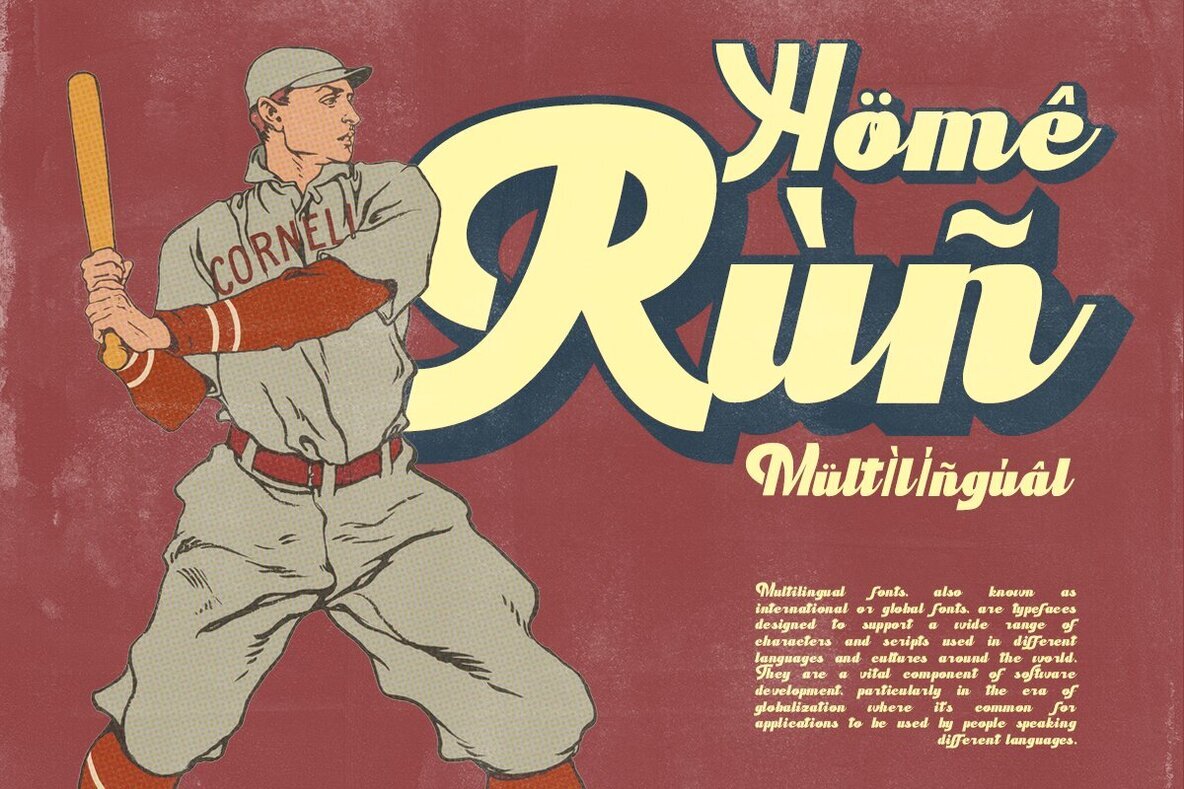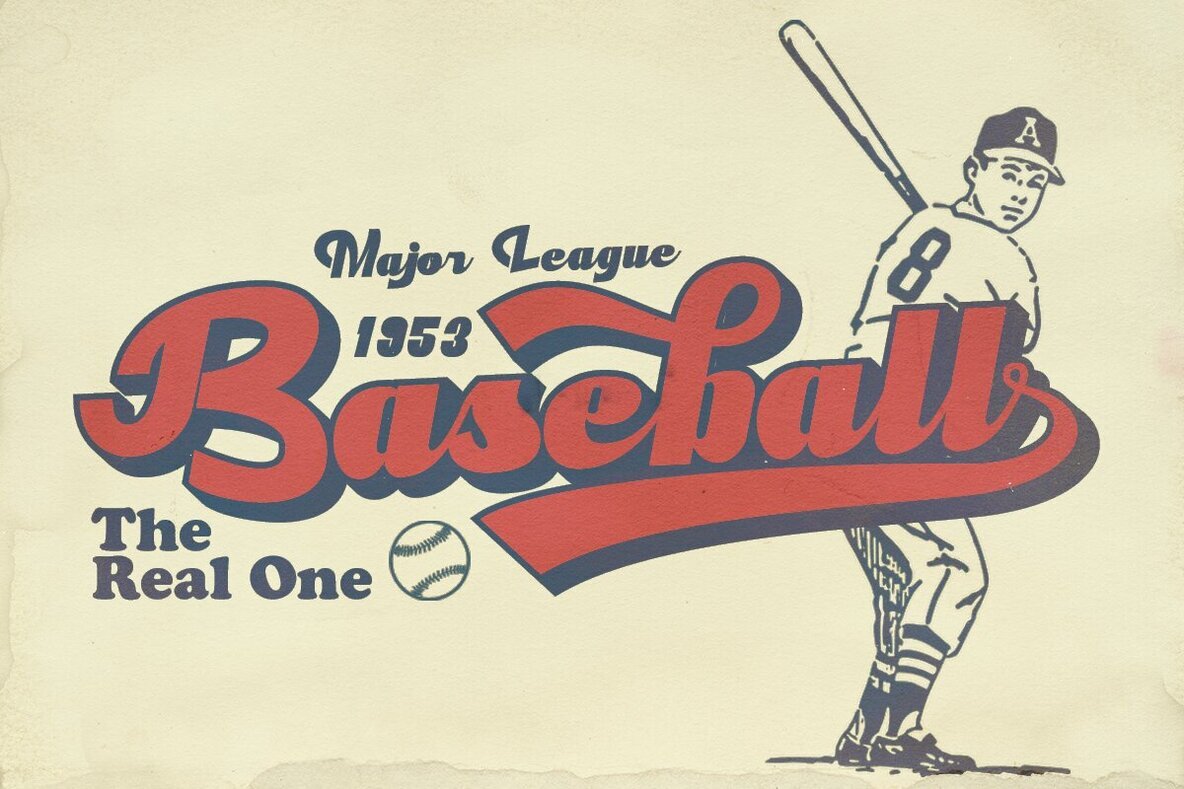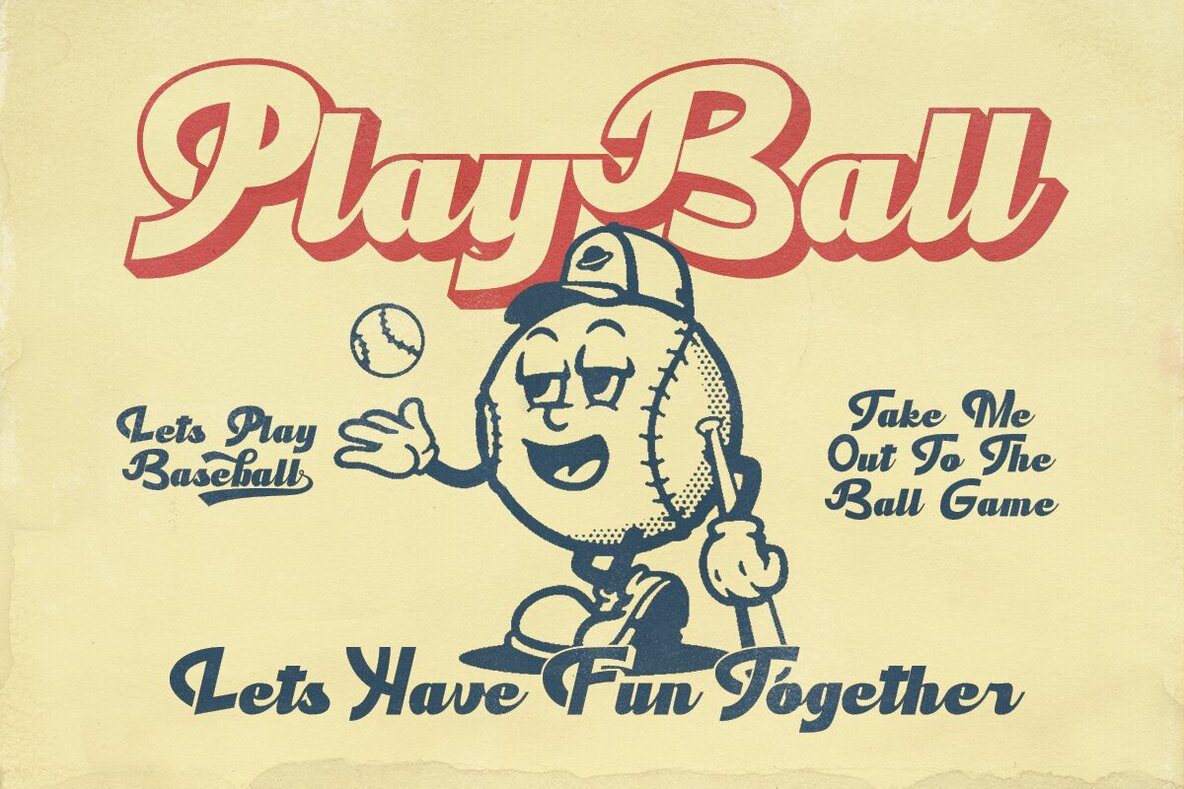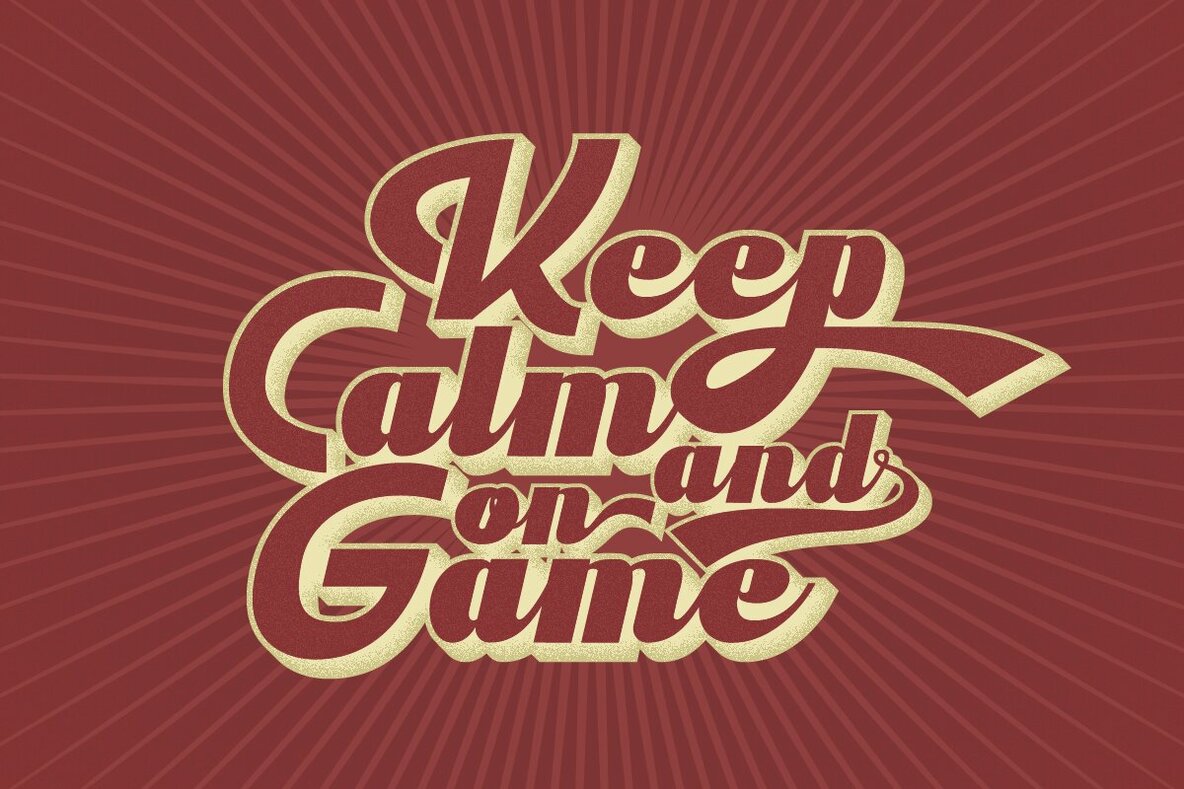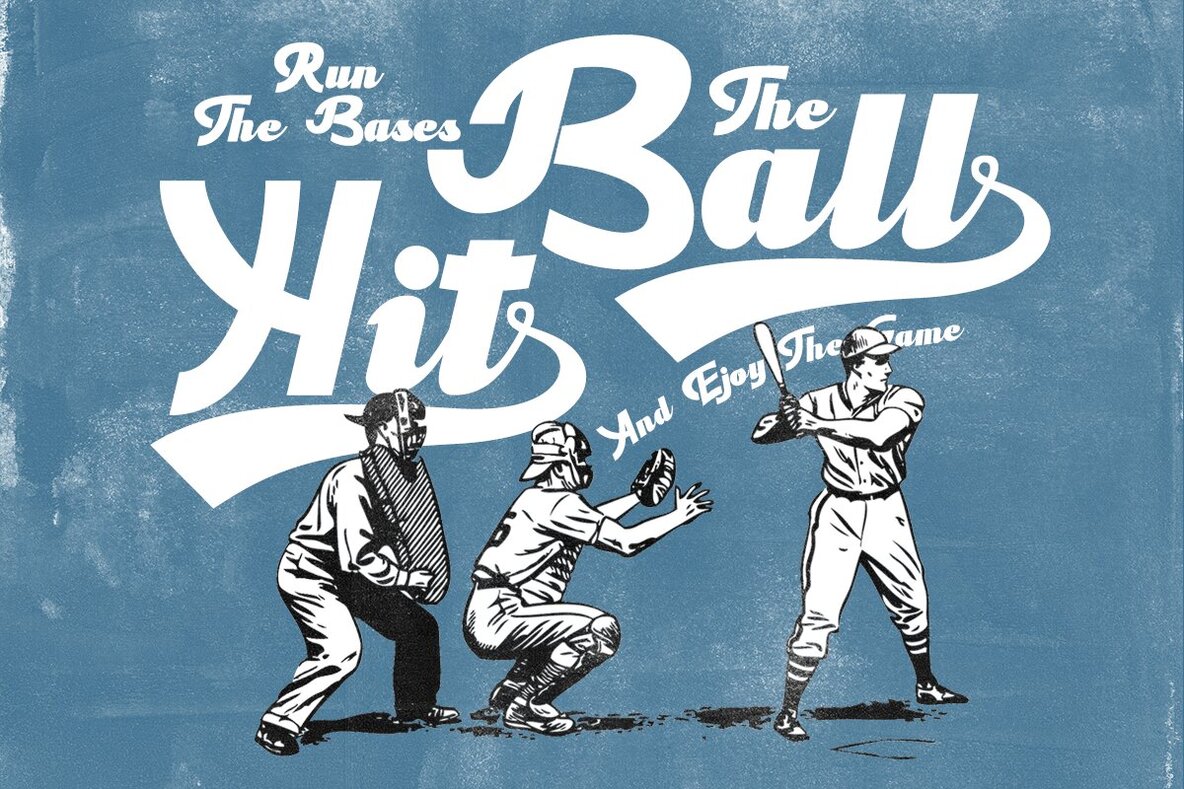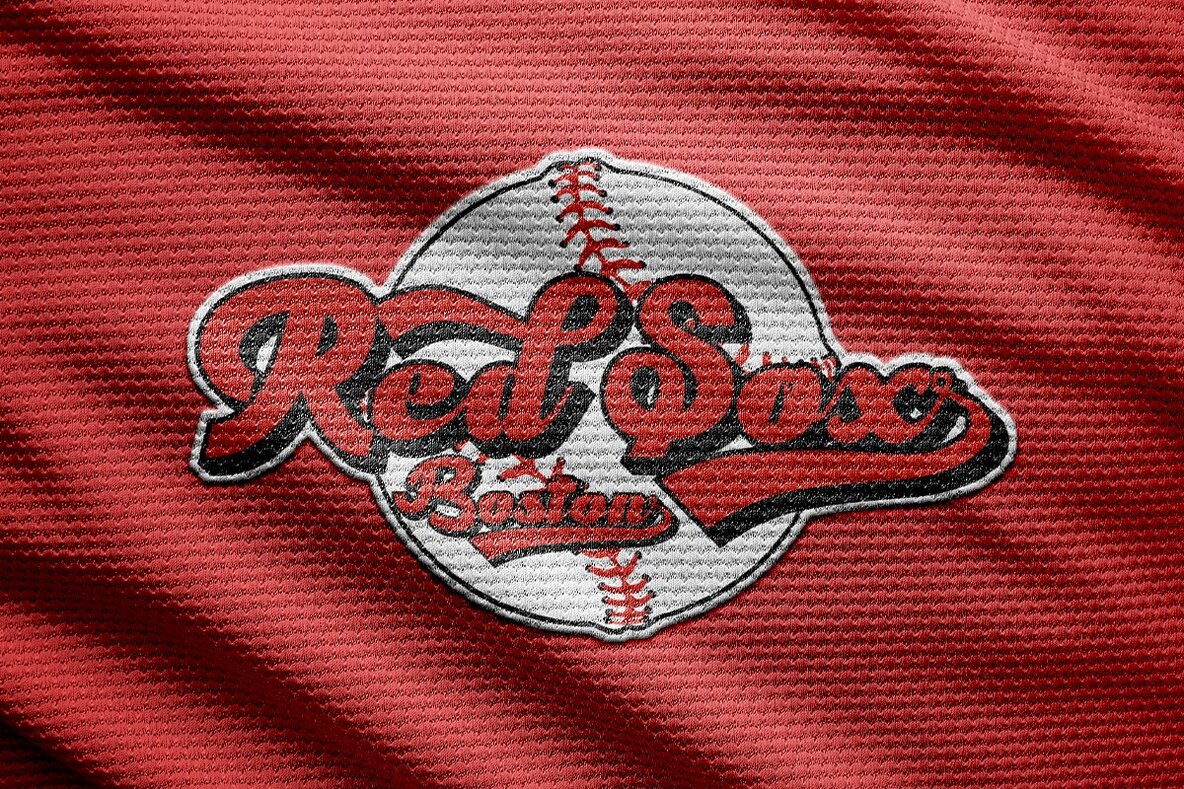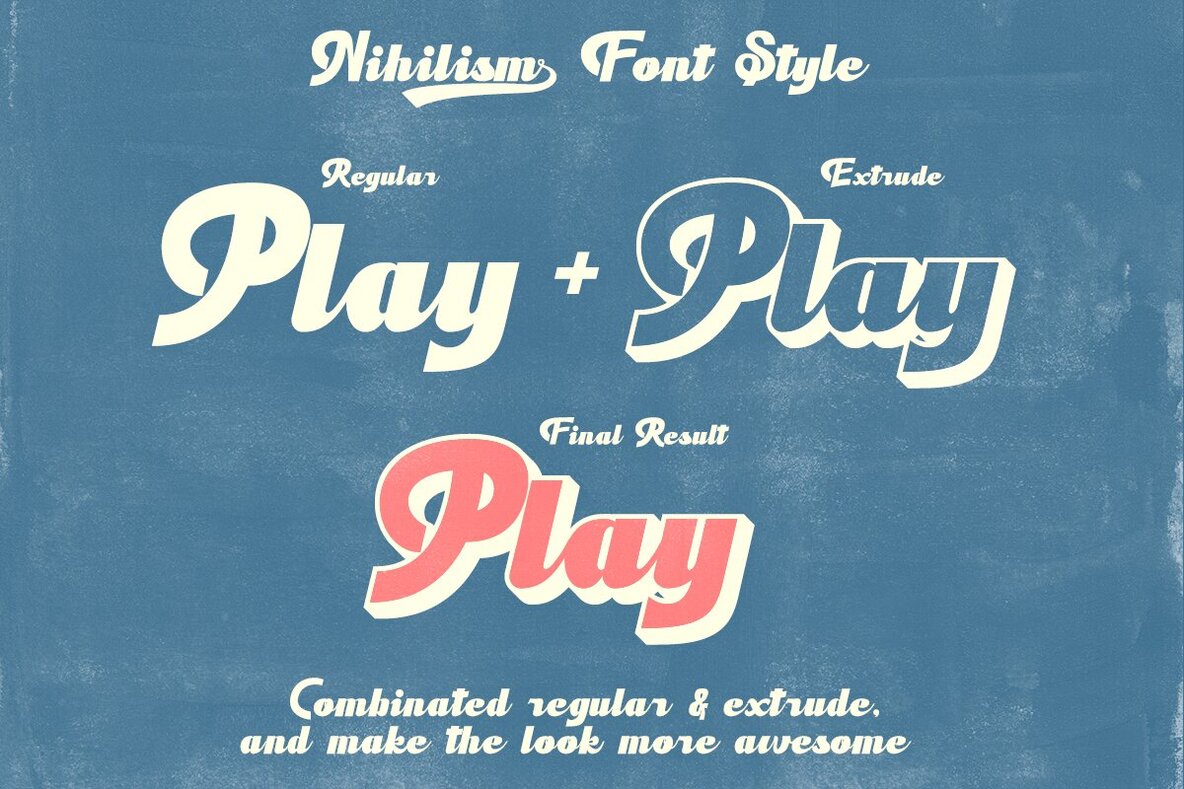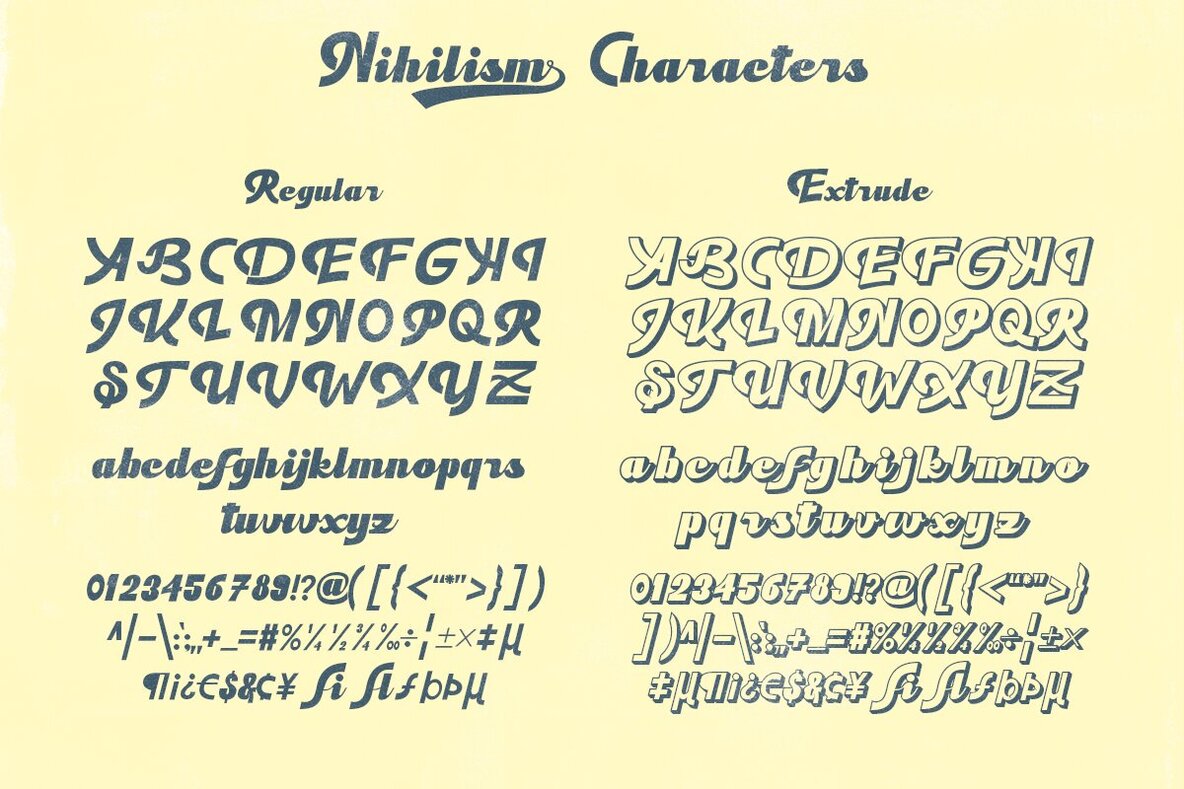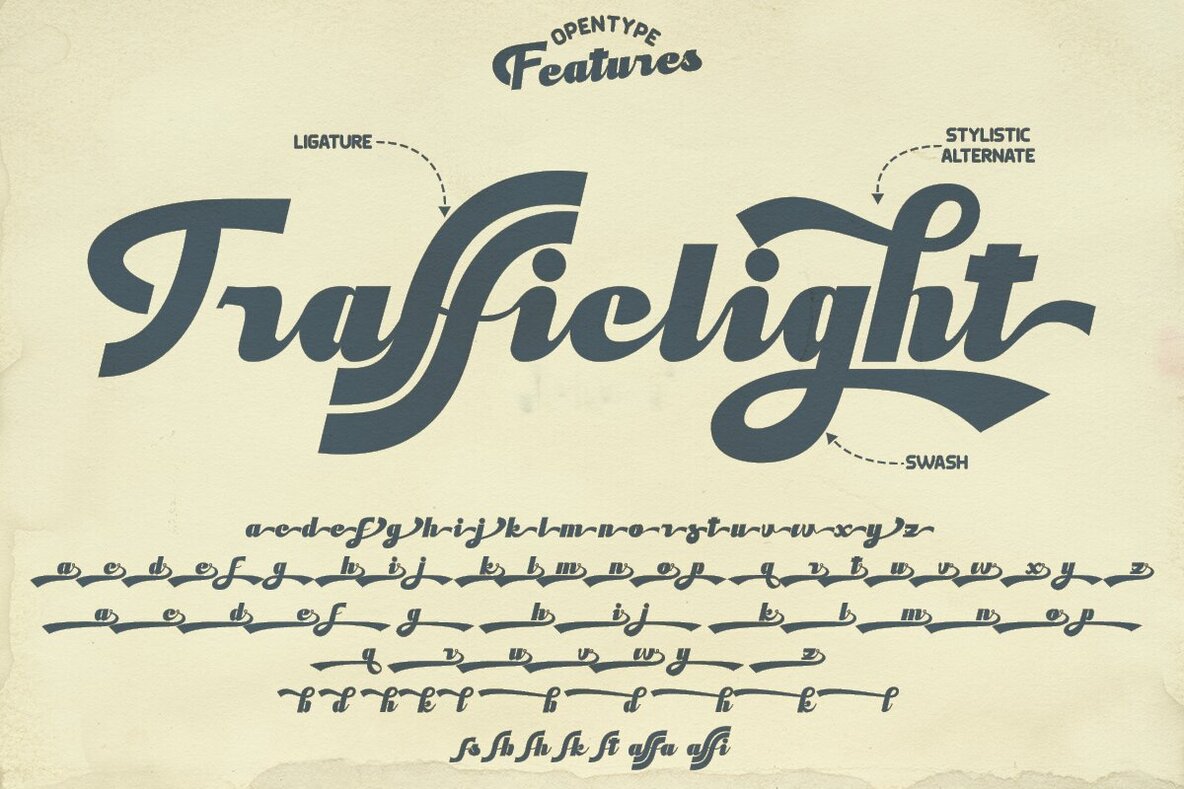
Nihilism Font
Nihilism is a meticulously crafted script font that balances graceful curves with a unique personality. Ideal for creating memorable logotypes, designing captivating posters, and much more, it infuses your designs with charm and style.Nihilism: Script Font with Graceful Curves and Distinctive Personality